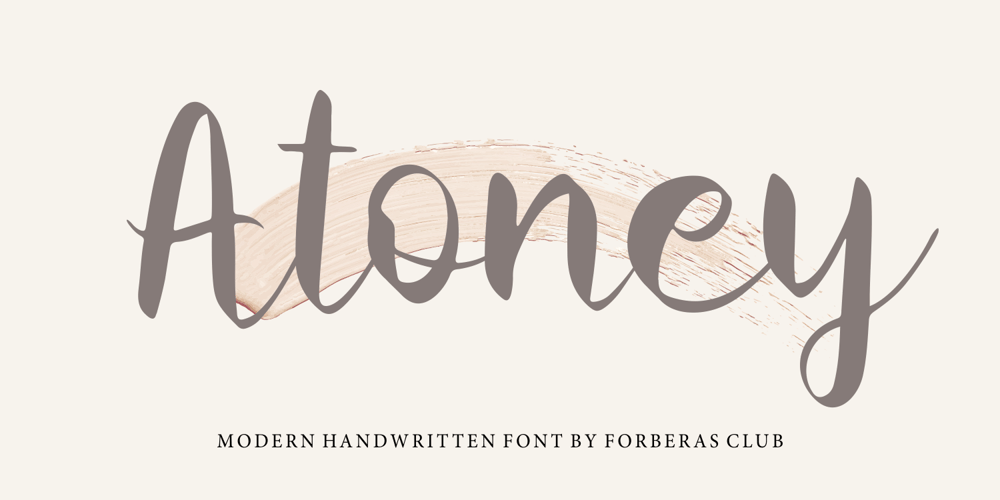
Atoney Font Family was designed by ANGGI HERMAWAN and published by Forberas Club. Atoney contains 1 styles and family package options. Atoney is simple handwritten.Create with careful every single piece. Recommended to apply this font for something that looks memorable.